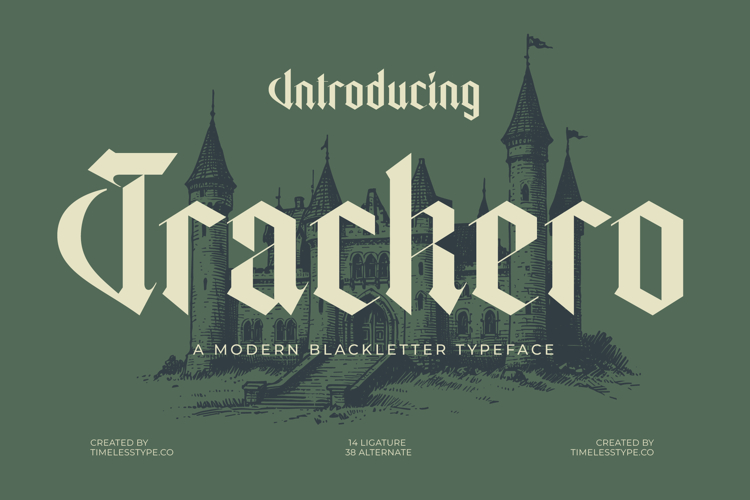
Trackero - Modern Blackletter Typeface
Unleash timeless elegance with a contemporary edge through Font Trackero - Modern Blackletter Typeface Blackletter. This captivating typeface masterfully fuses the rich heritage of traditional Blackletter calligraphy with a sleek, minimalist sensibility, creating an aesthetic that is both profoundly historic and undeniably modern. Its powerful presence and unique character ensure that your designs immediately command attention and convey sophisticated artistry.
Experience unparalleled visual distinction and masterful craftsmanship with every character. Font Trackero - Modern Blackletter Typeface Blackletter features a striking high-contrast design, characterized by its bold strokes and sharp, refined terminals. This careful balance of classic structure and modern precision results in a font that feels both authoritative and approachable, making it a truly exceptional choice for designers seeking to make a memorable impact.
Transform your projects with exceptional versatility and global reach. Font Trackero - Modern Blackletter Typeface Blackletter is ideal for luxury branding, editorial design, packaging, apparel, music artwork, and event promotion, perfect for projects requiring a distinctive and memorable aesthetic. With its extensive multilingual support, Font Trackero - Modern Blackletter Typeface Blackletter adapts seamlessly across global markets, making it incredibly versatile for international projects.
Elevate your designs and make an unforgettable statement. This typeface is more than just a font; it's a design statement that adds gravitas and authenticity to any creative endeavor. Choose Font Trackero - Modern Blackletter Typeface Blackletter to infuse your work with a rare blend of historical grandeur and modern appeal, ensuring your message resonates with powerful visual impact and enduring style.